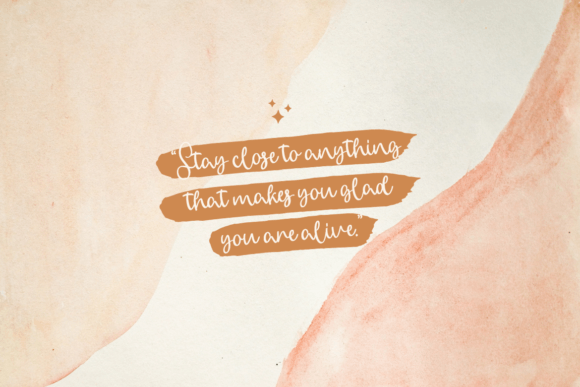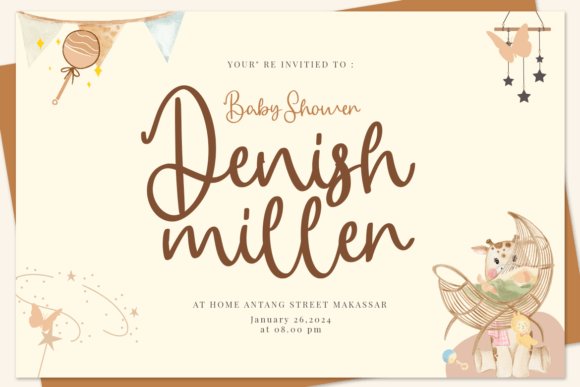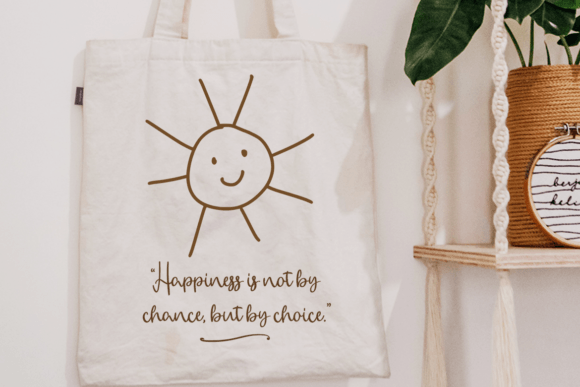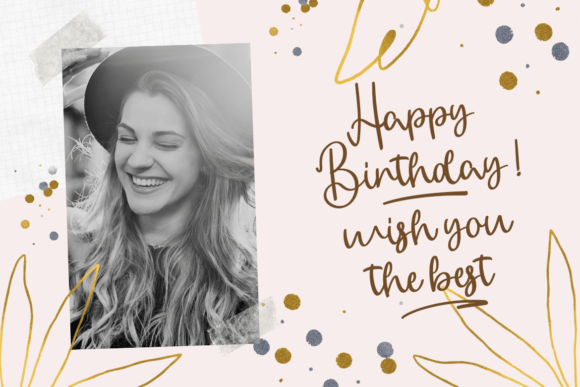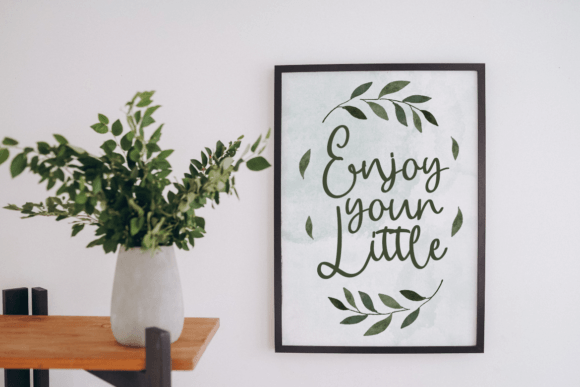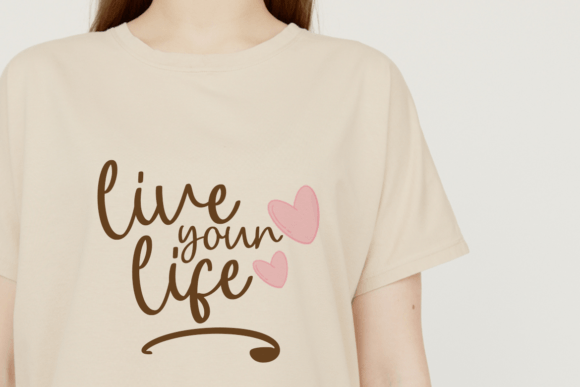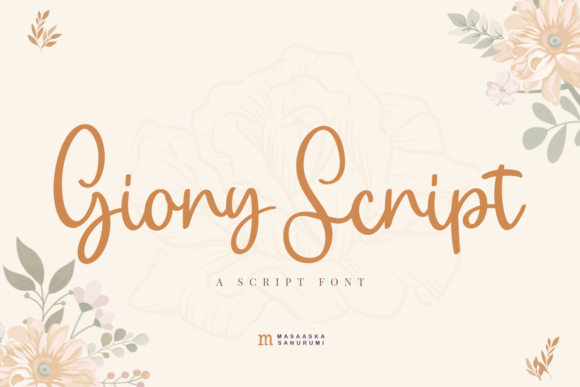
Introducing Giory Script Font: Elevate Your Creativity with Simplicity and Style
Are you a designer, crafter, or DIY enthusiast looking for a font that can transform your creative projects into stunning works of art? Look no further than the Giory Script Font. This beautiful and modern script font is defined by its simplicity and style, making it the perfect addition to your font collection.
What is Giory Script Font?
Giory Script Font is a carefully crafted font designed to bring a touch of elegance and sophistication to your creative projects. Its modern script style is perfect for a wide range of applications, from Instagram posts and stories to calligraphy scripts, DIY projects, and more.
Key Features of Giory Script Font
- Simple yet Stylish: Giory Script Font boasts a clean and minimalist design that exudes style and sophistication.
- Modern Script Style: Its modern script style makes it perfect for creative projects that require a touch of elegance.
- Highly Versatile: Use Giory Script Font for a wide range of applications, from social media posts to DIY projects and more.
- Easily Readable: The font’s clear and concise design ensures that your text is easily readable, even at smaller sizes.
Giory Script Font is a dream come true for designers and crafters. Its versatility and style make it perfect for a wide range of creative projects, including:
- Instagram Posts and Stories: Add a touch of elegance to your Instagram feed with Giory Script Font.
- Calligraphy Scripts: Use Giory Script Font to create beautiful calligraphy scripts for DIY projects, such as wedding invitations, greeting cards, and more.
- DIY Projects: From scrapbooking to crafting, Giory Script Font is the perfect addition to your DIY projects.
- Graphic Design: Use Giory Script Font to add a touch of sophistication to your graphic design projects, such as brochures, flyers, and more.
Why Choose Giory Script Font?
- Unique and Modern Design: Giory Script Font boasts a unique and modern design that will set your creative projects apart.
- Easily Customizable: The font is easily customizable, allowing you to adjust the size, color, and style to suit your needs.
- High-Quality: Giory Script Font is a high-quality font designed to deliver exceptional results.
Tips for Using Giory Script Font
Here are a few tips for getting the most out of Giory Script Font:
- Experiment with Sizes: Try using Giory Script Font in different sizes to add visual interest to your creative projects.
- Play with Colors: Experiment with different colors to find the perfect match for your Giory Script Font.
- Mix and Match: Don’t be afraid to mix and match Giory Script Font with other fonts to create a unique look.
In conclusion, Giory Script Font is a beautiful and modern script font that is perfect for designers, crafters, and DIY enthusiasts. Its simplicity and style make it a versatile addition to any creative project. With its highly readable design, easily customizable features, and high-quality output, Giory Script Font is a must-have font for anyone looking to elevate their creativity.